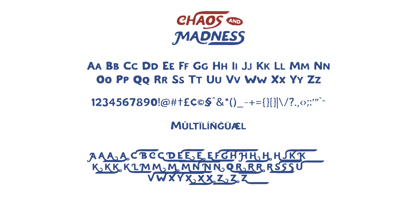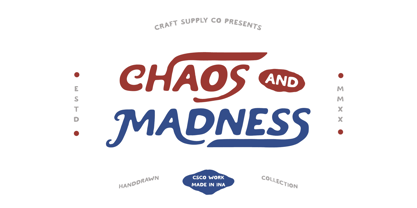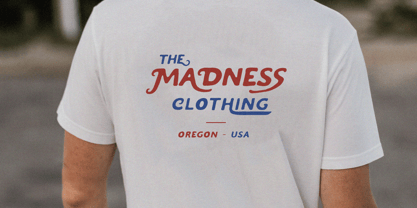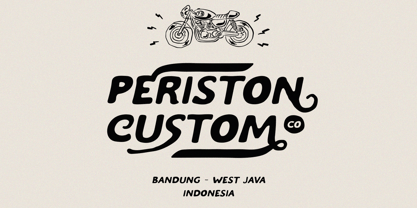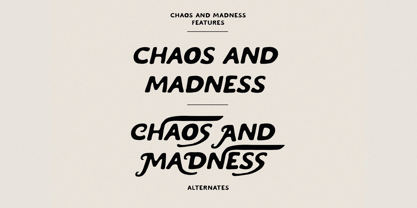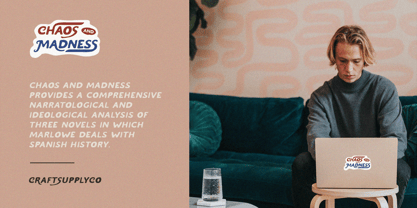
Chaos And Madness
by Craft Supply Co
The Chaos And Madness Font Family was designed by Trio Nazzar Saputra, Wahyu Hadi Yuana and published by Craft Supply Co. Chaos And Madness contains 2 styles and family package options. More about this family
Introducing Chaos and Madness – Handdrawn Font
Chaos and Madness – Handdrawn Font can be used to create almost all types of design projects like print materials. Just use your imagination and your project will become more alive and look great than ever with Chaos and Madness – Handdrawn Font